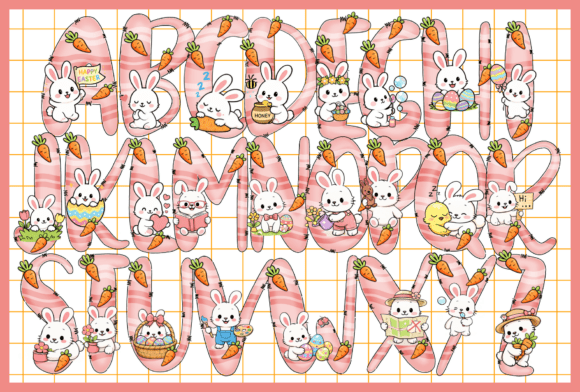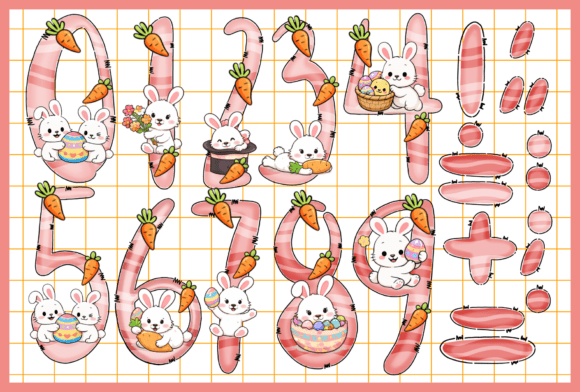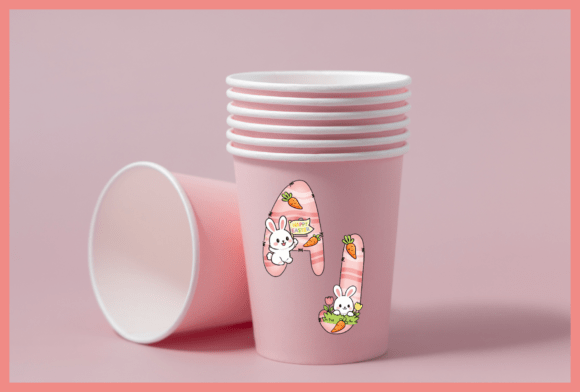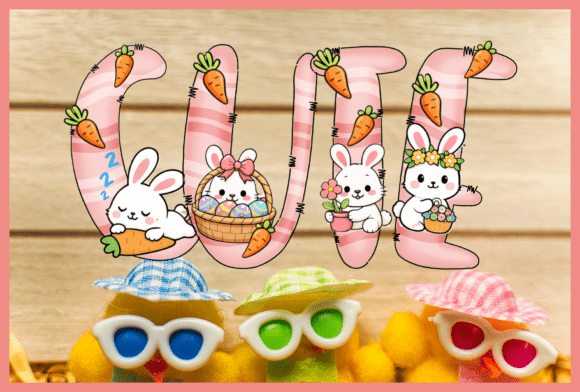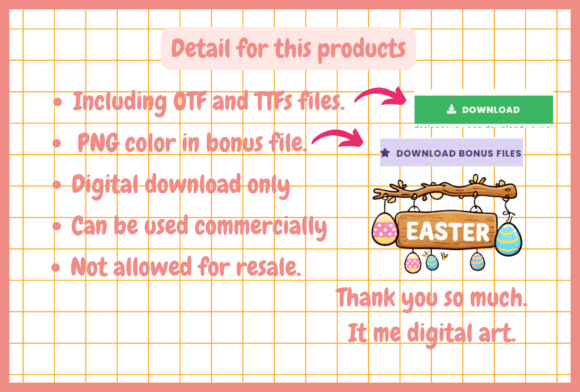
Introduction to End of Easter Font
As a designer, have you ever found yourself staring at a blank canvas, searching for the perfect font to bring your Spring-themed project to life? The moment of creative spark is what drives us to seek out the most unique and captivating design resources. And, that’s exactly where the End of Easter Font comes in – a charming, high-quality digital alphabet that’s sure to infuse your work with a touch of whimsy and festivity.
With its soft pink striped texture, playfully decorated characters, and vibrant orange carrots, this font is a treasure trove of design inspiration. Whether you’re working on a greeting card, a children’s book, or a social media campaign, the End of Easter Font is the perfect addition to elevate your creative project.
Key Features of End of Easter Font
- Unique Easter-themed design with a twist, perfect for creative projects
- Includes a range of characters, including uppercase and lowercase letters, numbers, and special symbols
- Designed with a bold and playful style, making it perfect for adding a pop of color to your creative project
Honest Review: End of Easter Font
As a designer, I was excited to dive into the End of Easter Font and see if it lived up to its promise of being a high-quality design resource. And, I’m happy to report, it does.
However, there are a few limitations to consider: ⚠️ The font may be too cute for more serious or professional projects, and some users may find the playful design to be distracting. Additionally, the font is limited to a single style, which may not be ideal for designers who need a range of options.
Overall, I would highly recommend the End of Easter Font for designers who are looking for a fun and creative addition to their design resources. Just be sure to use it in the right context, and you’ll be sure to love the results.
- Perfect for creative projects that require a touch of whimsy
For the best results, use the End of Easter Font in conjunction with other design elements that match its playful and whimsical style. This font is perfect for creative projects, such as Easter-themed invitations, party decorations, and social media graphics.